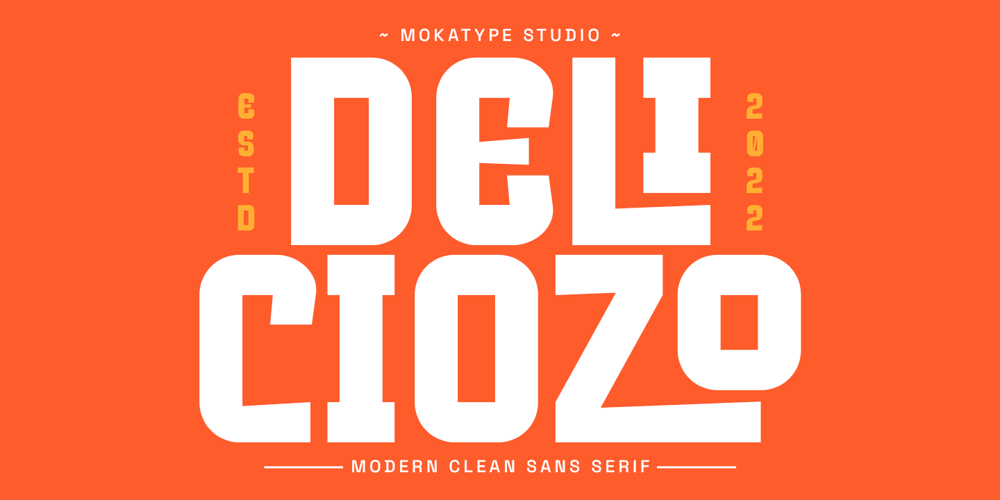
Deliciozo Font Family was designed by Abdul Malik Wisnu, Rivo Dwi Adriansyah and published by Mokatype Studio. Deliciozo contains 1 styles and family package options. Deliciozo is a powerful and elegant display typeface, Deliciozo is strong for simple display design with short text like headlines and quotes. Build with several ligatures, Deliciozo makes a strong impression in print, headlines, videos, social media and etc.What’s you get : Standard glyphs Ligatures (Opentype features) Web Font International Accent Works on PC & Mac Simple installations Accessible in Adobe Illustrator, Adobe Photoshop, Adobe InDesign, and even work on Microsoft Word. PUA Encoded Characters – Fully accessible without additional design software. Fonts include multilingual supportImage used: All photographs/pictures/vectors used in the preview are not included, they are intended for illustration only. Thank You